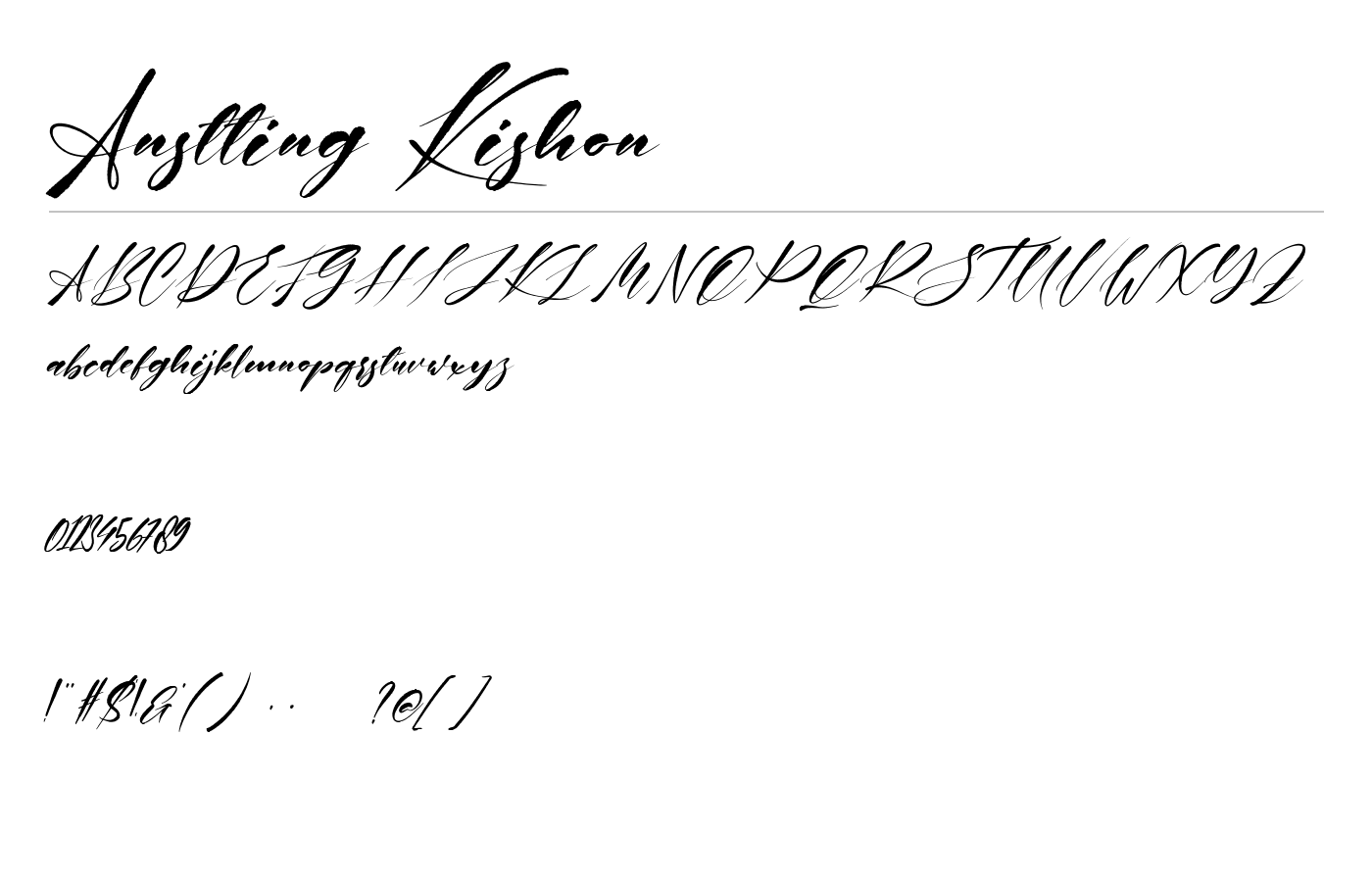
Anstting Kishon is a delicate and elegant script font with a fluid, handwritten style that features high contrast between thick and thin strokes, creating a sophisticated and artistic feel. Its narrow letterforms and graceful swashes make it perfect for invitations, branding, and decorative headlines where a refined, personal touch is desired. This font shines in contexts that aim to convey elegance and creativity, such as luxury packaging, fashion, and upscale editorial design.
Anstting Kishon Font
About Anstting Kishon Font
| Font family | Anstting Kishon Font |